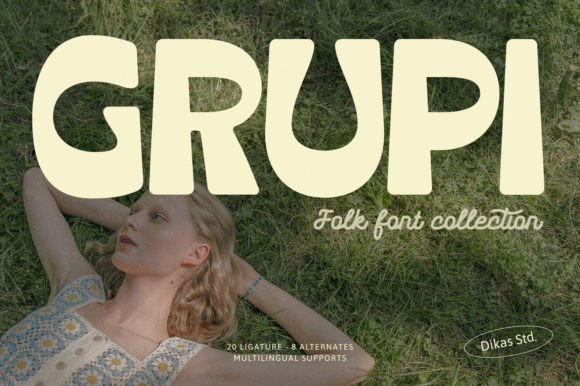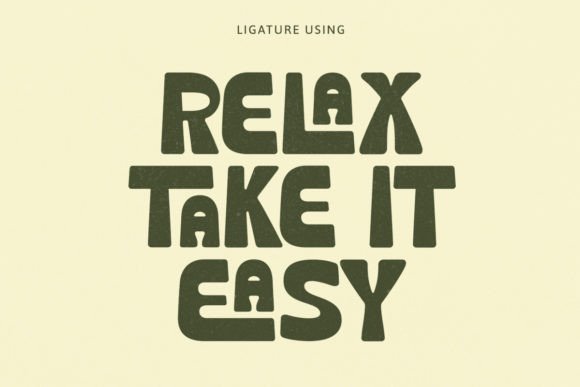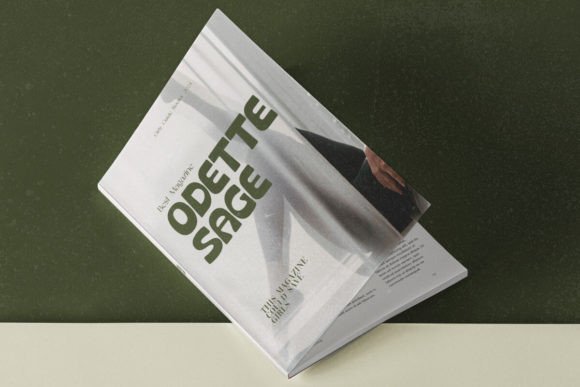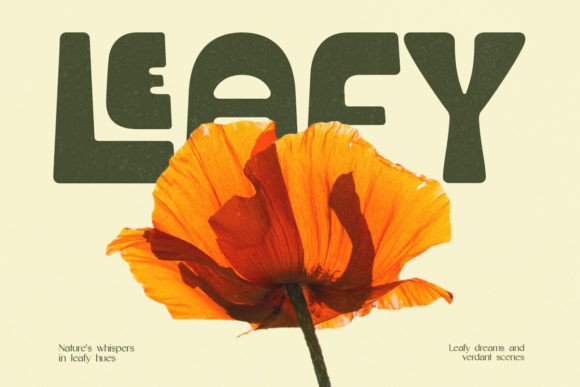
Get Ready to Groove with Grupi Font
Do you ever get that creative spark where you just can’t wait to dive into your design project and start bringing your vision to life? For me, it’s that moment when the perfect font pops into my head and I know exactly how to make my design stand out. And that’s exactly what Grupi Font is all about – adding a bold, playful touch to your retro, groovy, and pop-style designs.
Grupi Font is a chunky, rounded font that’s made for creatives who want to add some serious swag to their projects. With its awesome ligatures and alternative characters, you can get creative and playful with your designs, making it a valuable addition to any designer’s toolkit. Whether you’re looking to create something fun or just want a bold, standout look, Grupi Font has got you covered.
Grupi Font Key Features
- Font Family: Grupi Font is a sans-serif font family that includes 12 styles (from Thin to Black) and 3 widths (Condensed, Regular, and Extended).
- Font Size: Grupi Font is designed to be highly scalable, making it suitable for use in a wide range of font sizes, from 8pt to 200pt.
- Resolution: Optimized for high-resolution displays (HiDPI), Grupi Font is perfect for use in digital media, such as websites, mobile apps, and digital signage.
- Unique Characteristics: Grupi Font features a unique blend of modern and minimalist design elements, making it a versatile choice for a wide range of applications, from corporate branding to creative projects.
- Character Set: Includes a comprehensive character set, including Latin, Cyrillic, and Greek alphabets, as well as a range of punctuation and symbol characters.
Designer Review: Grupi Font
Overall, I think Grupi Font is a solid addition to any designer’s toolkit, but it’s not without its flaws. Here are my honest thoughts on what works and what doesn’t.
- Unique, creative style that adds a touch of whimsy to any design project.
- Clear, legible typography that’s perfect for body text and headings.
- Supports a wide range of languages, making it a great choice for global brands.
- Works well in digital formats, including web and mobile applications.
- Not ideal for formal or professional designs where a more conservative font style is required.
- Lack of bold or italic styles may limit its use in certain design applications.
- May not be the best choice for very large or small font sizes, where the font’s unique style may become distorted.
Overall, I think Grupi Font is a fun, versatile font that’s perfect for creative projects or brands that want to stand out from the crowd. While it may not be the best choice for every design project, it’s definitely worth considering for the right application.
Practical Application Guide for Grupi Font
Getting the Most Out of Grupi Font
To get the most out of Grupi Font, use it in combination with other design elements to create a unique and visually appealing design. Experiment with different font sizes, colors, and styles to find the perfect combination.
Grupi Font is commonly used in:
- Business cards and resumes
- Posters and flyers
- Web design and digital marketing materials
Alternatives to Grupi Font for Designers
Great Vibes is a modern, elegant script font suitable for headings, titles, and quotes. It’s perfect for designs that require a touch of sophistication and playfulness. Great Vibes is more cursive and flowing compared to Grupi Font, which makes it ideal for creative and artistic projects.
Comparison: Great Vibes is more ornate and has a more natural feel compared to Grupi Font, making it a better choice for designs that require a unique and eye-catching script font.
Pacifico is a beautiful, elegant script font inspired by the Pacific coastline. It’s perfect for designs that require a sense of calmness and serenity. Pacifico is more refined and delicate compared to Grupi Font, making it ideal for designs that require a touch of sophistication and elegance.